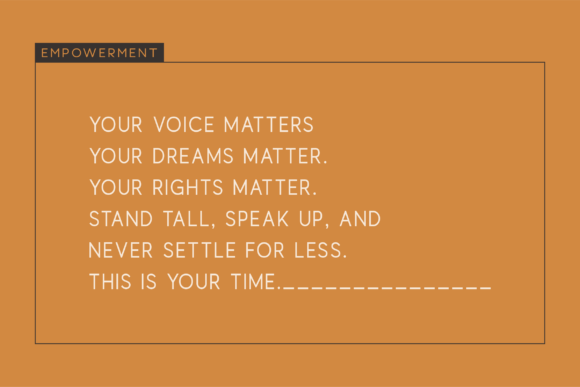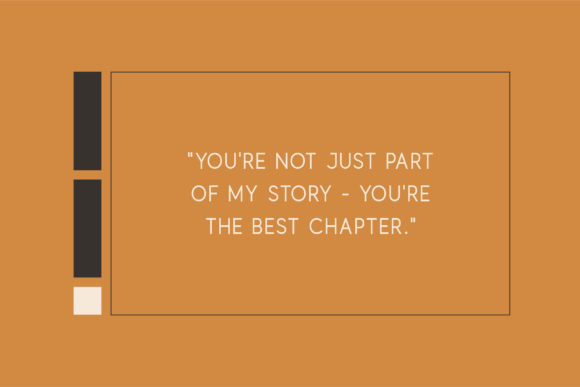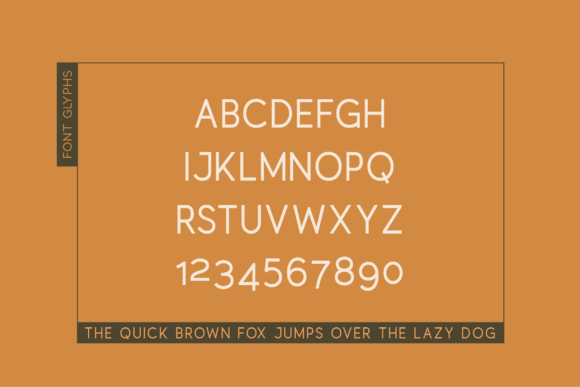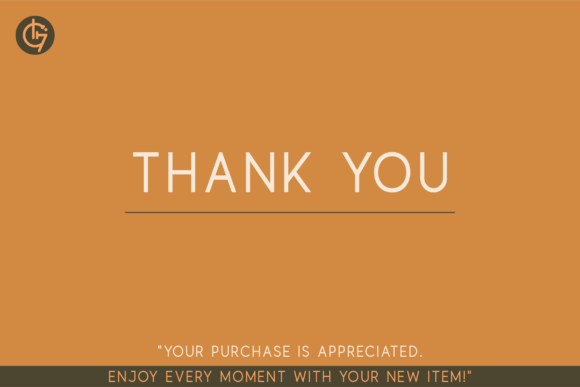
Introducing Gloryon – A Modern Sans Serif Typeface
In the world of typography, a good font can make all the difference in the success of a design project. For designers and crafters looking for a bold and modern sans serif typeface, look no further than Gloryon. This all-caps font is designed to exude strength and authority, making it perfect for projects that require a sense of professionalism and impact.
Clean Lines and Minimalist Aesthetic
Gloryon boasts clean lines and a minimalist aesthetic, giving it a sharp and crisp edge that’s perfect for a variety of design applications. Whether you’re designing a logo, website, or print material, Gloryon makes a statement with its bold and confident look. The strong, geometric structure of this font ensures versatility, making it suitable for everything from digital interfaces to high-end branding.
Key Features of Gloryon
- All-caps design for maximum impact and emphasis on clarity and readability
- Modern, minimalist style with a focus on readability and a clean, confident look
- Bold, clean lines for a professional and polished appearance
- Ideal for branding, logos, packaging, and digital design
- Perfect for both large-scale headlines and smaller text blocks
Who Benefits from Gloryon?
Gloryon is perfect for a wide range of designers and crafters, including:
- Graphic designers looking for a bold and modern sans serif font for their projects
- Branding experts seeking a font that exudes professionalism and authority
- Web designers who need a clean and readable font for their website designs
- Print designers looking for a font that’s perfect for posters, flyers, and other print materials
- Crafters and DIY enthusiasts who want to add a professional touch to their handmade projects
Why Choose Gloryon?
With so many fonts available, why choose Gloryon? Here are just a few reasons why this modern sans serif typeface stands out:
- Uniqueness: Gloryon has a distinctive look that’s sure to make your designs stand out
- Versatility: This font is suitable for a wide range of design applications, from digital to print
- Readability: Gloryon’s clean lines and minimalist aesthetic make it easy to read, even at small sizes
- Professionalism: This font exudes professionalism and authority, making it perfect for high-end branding and design projects
Tips for Using Gloryon
Here are a few tips for getting the most out of Gloryon:
- Use it boldly: Gloryon is designed to make a statement, so don’t be afraid to use it in bold and large sizes
- Pair it with other fonts: Gloryon pairs well with other sans serif fonts, as well as serif fonts for a striking contrast
- Experiment with colors: Gloryon looks great in a variety of colors, from bold and bright to muted and subtle
In conclusion, Gloryon is a modern sans serif typeface that’s perfect for designers and crafters looking for a bold and professional font. With its clean lines, minimalist aesthetic, and all-caps design, Gloryon is sure to make a statement in any design project. Whether you’re designing a logo, website, or print material, Gloryon is a versatile and readable font that’s sure to impress.